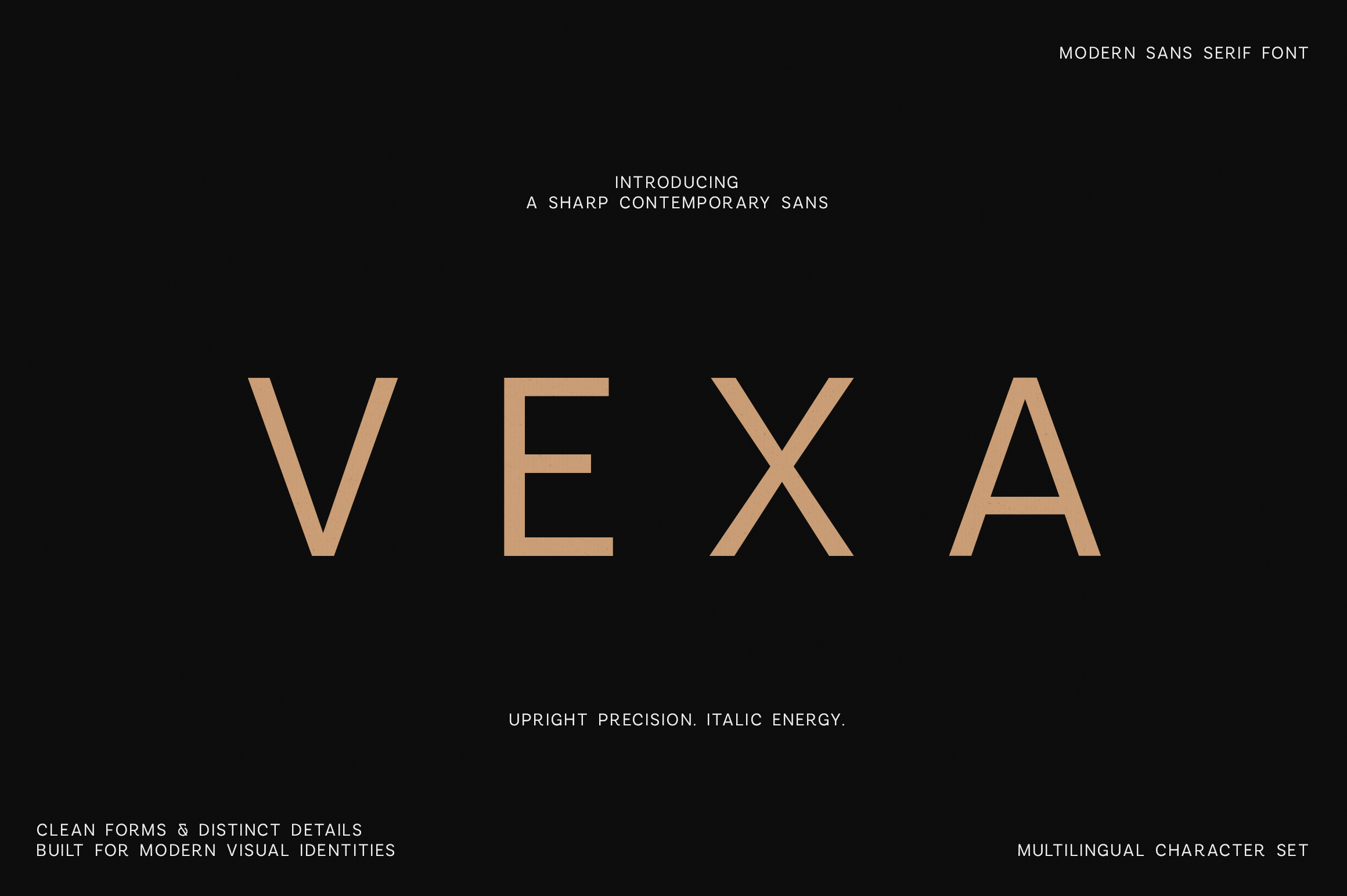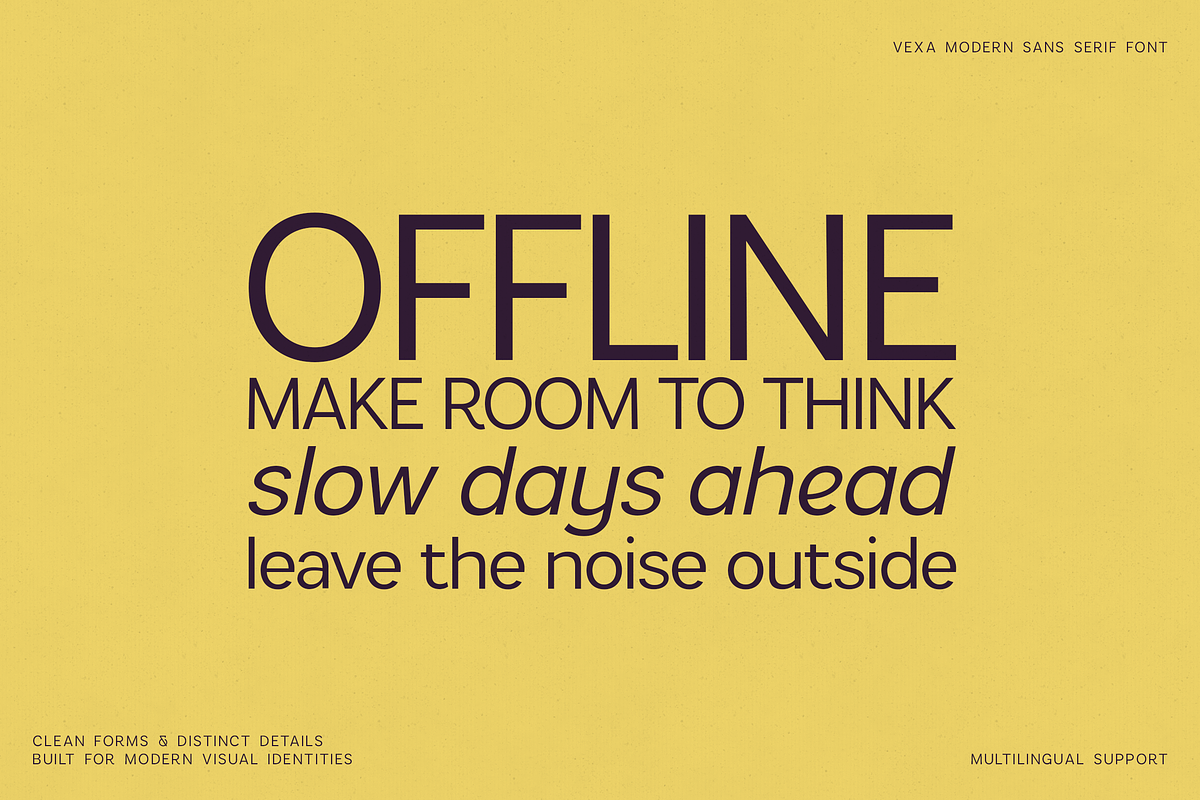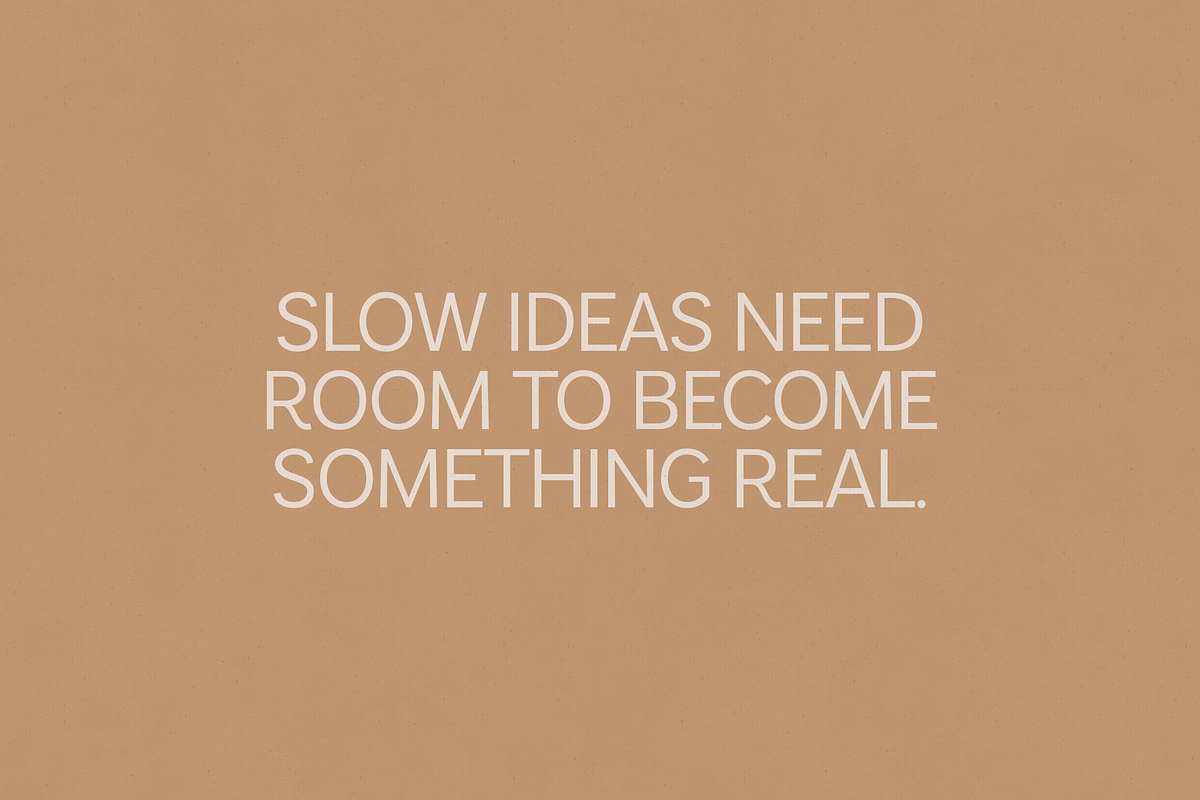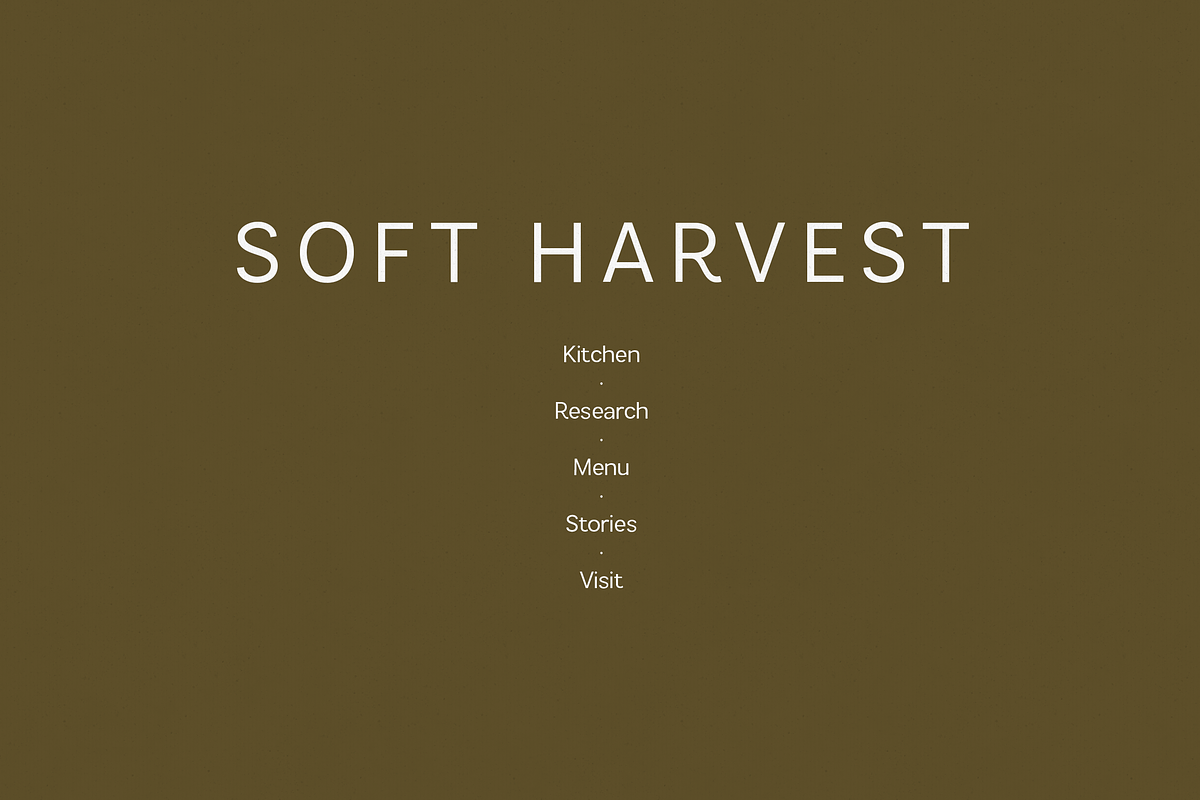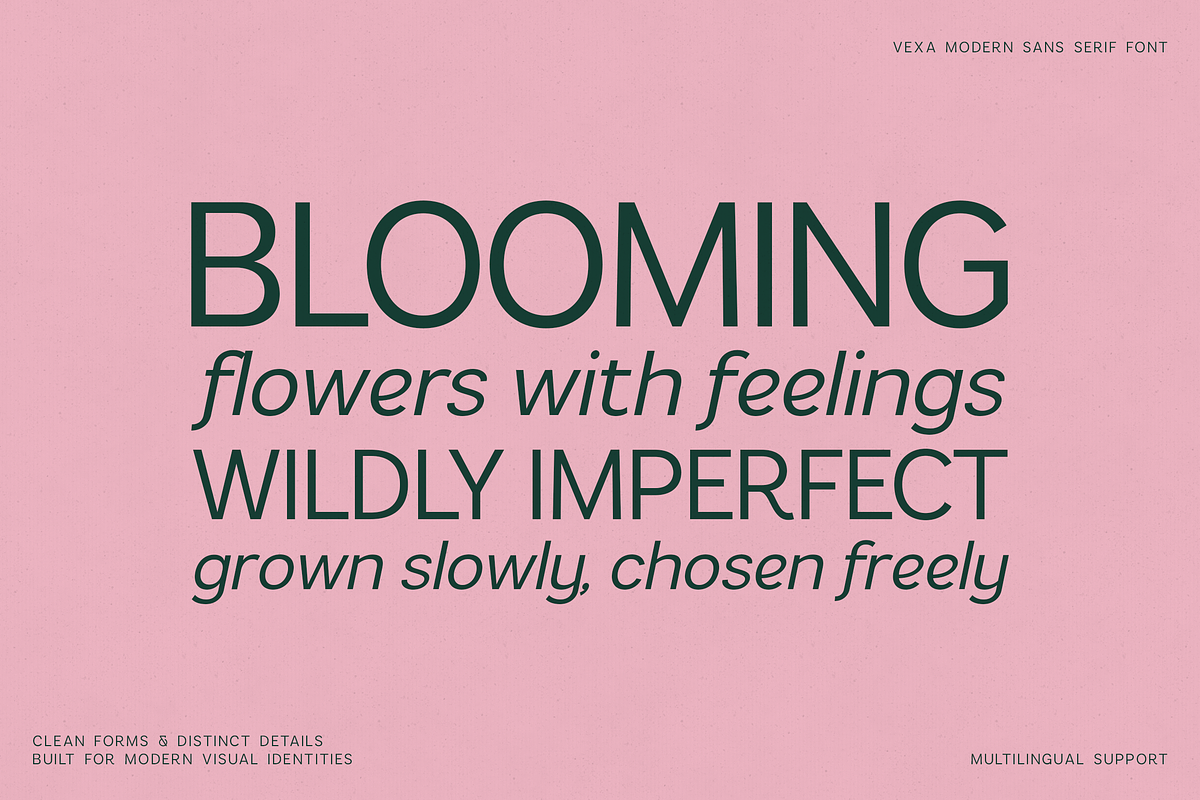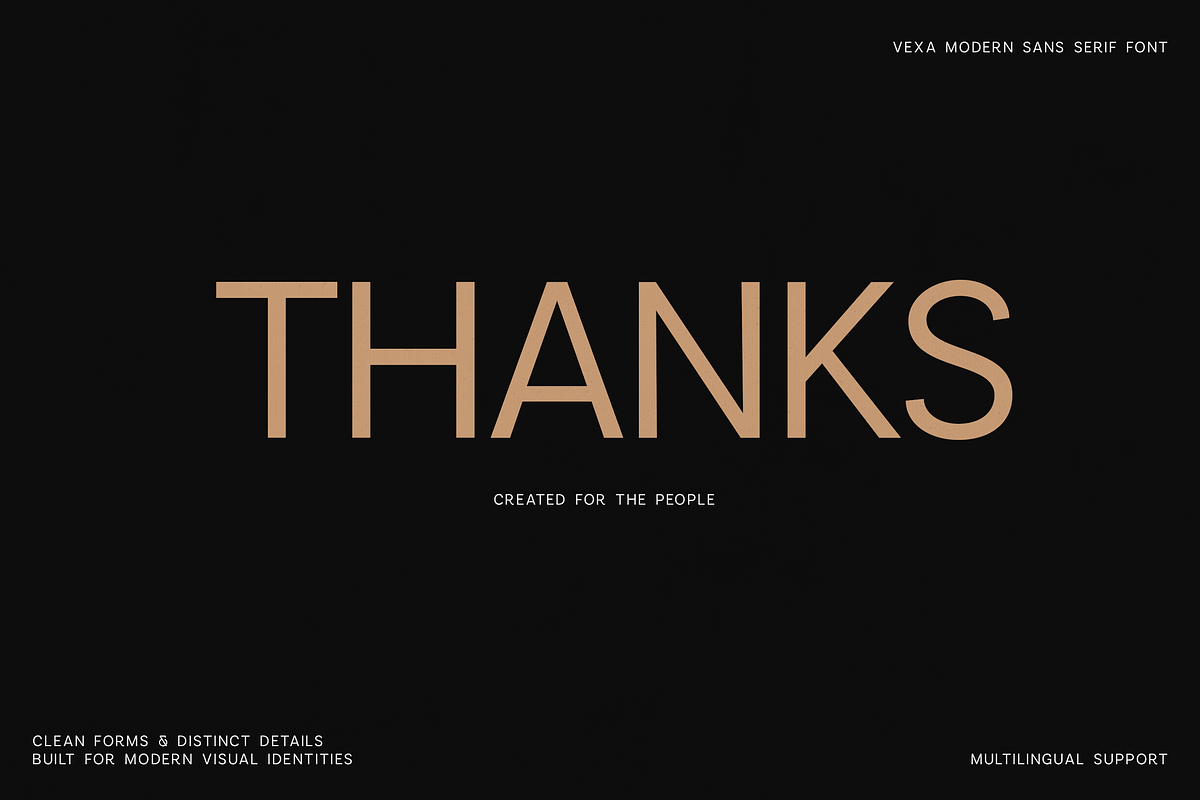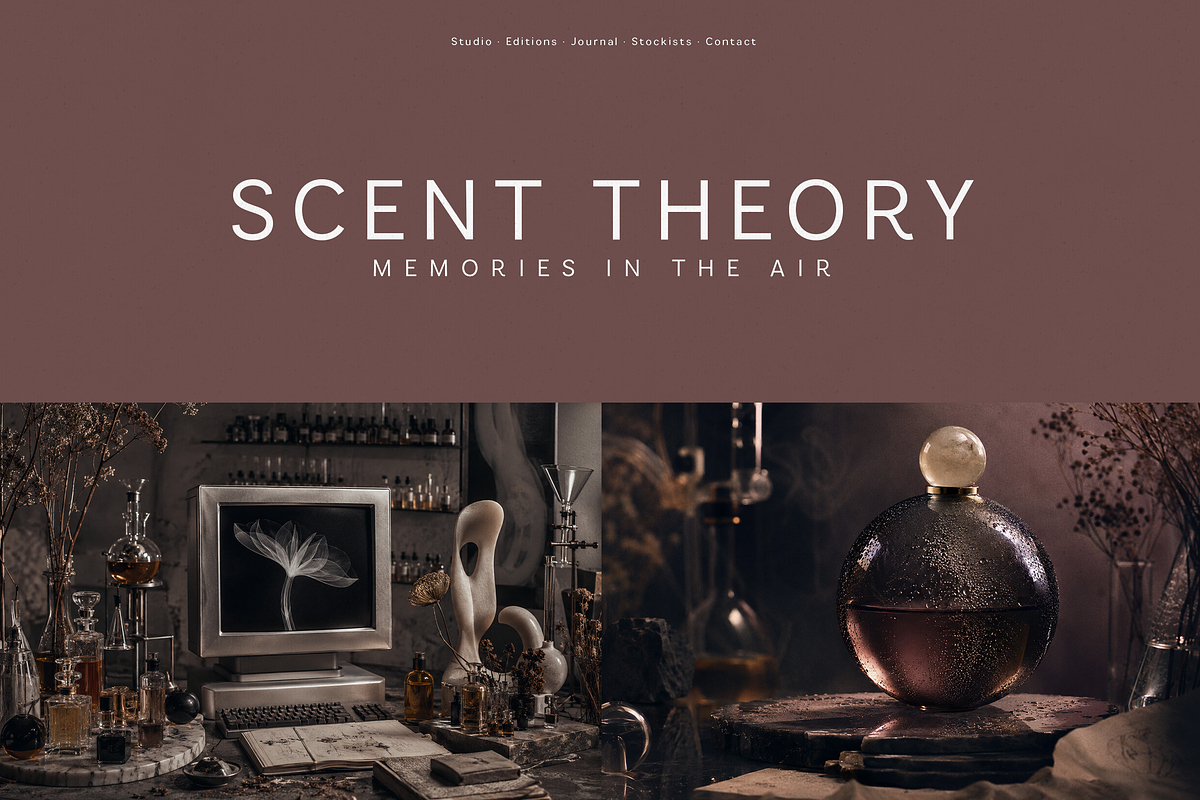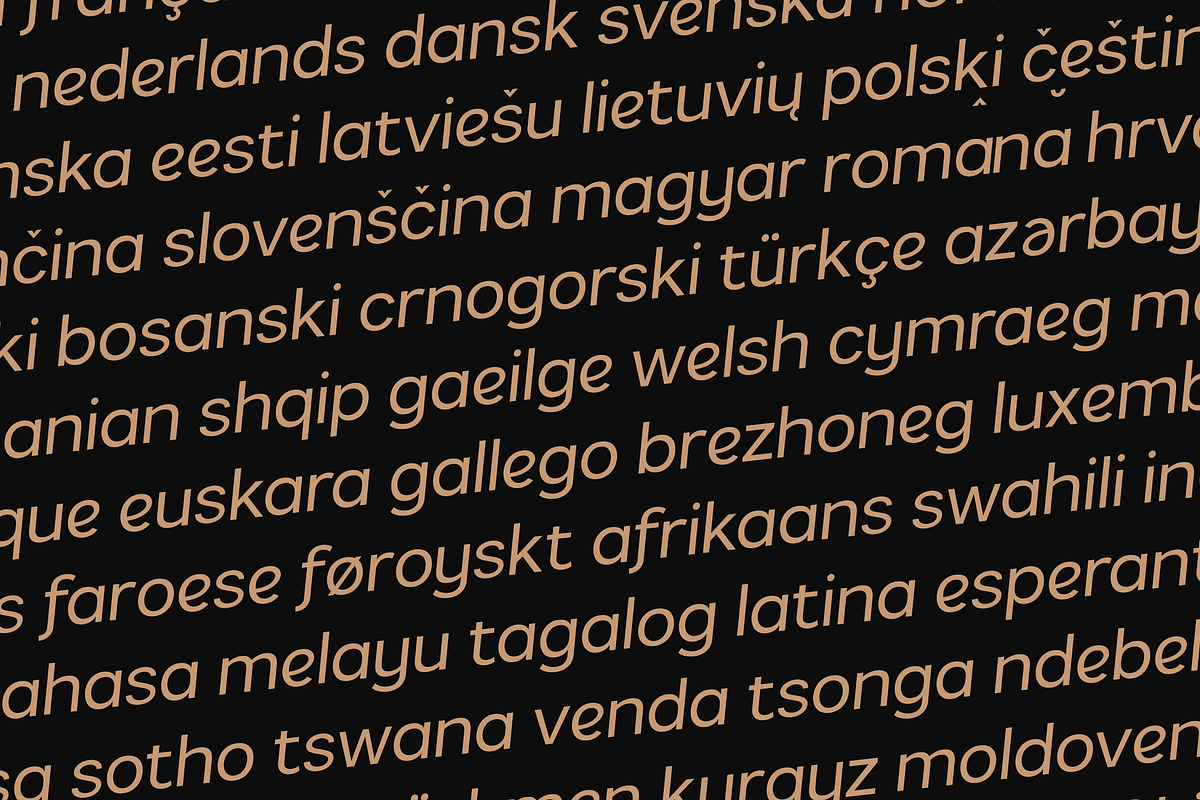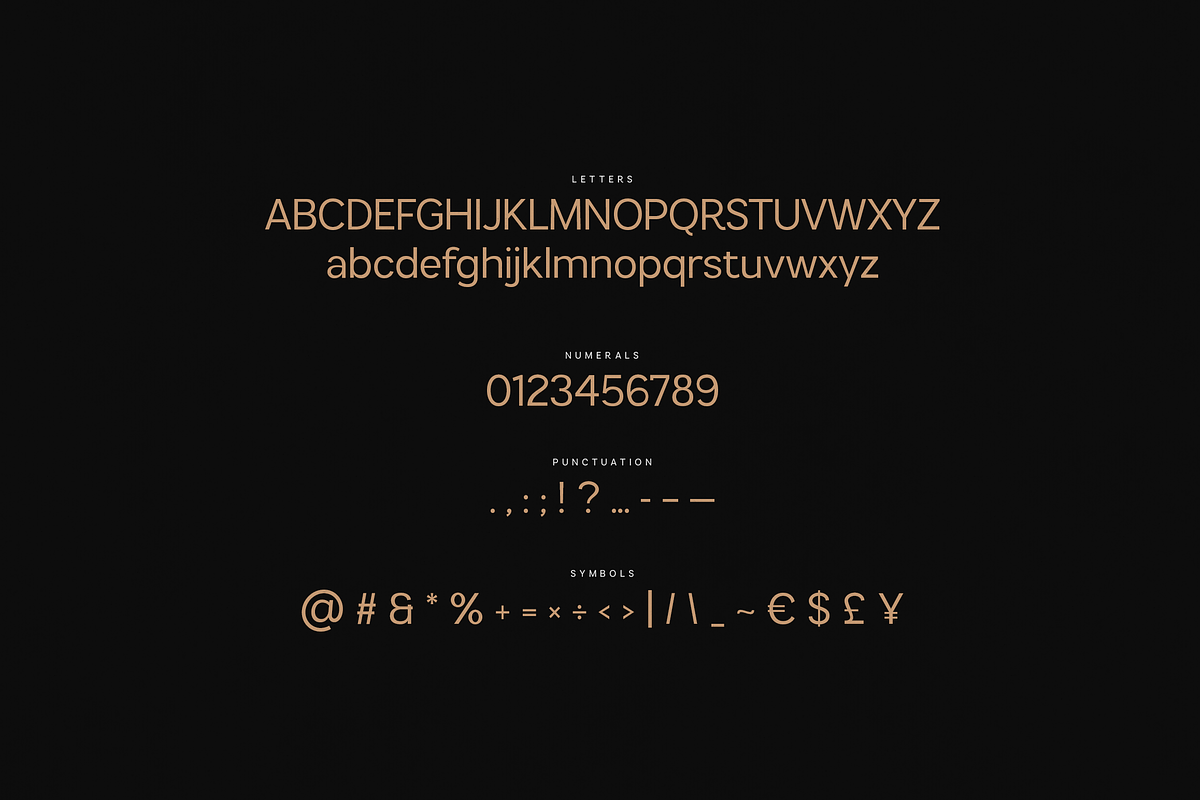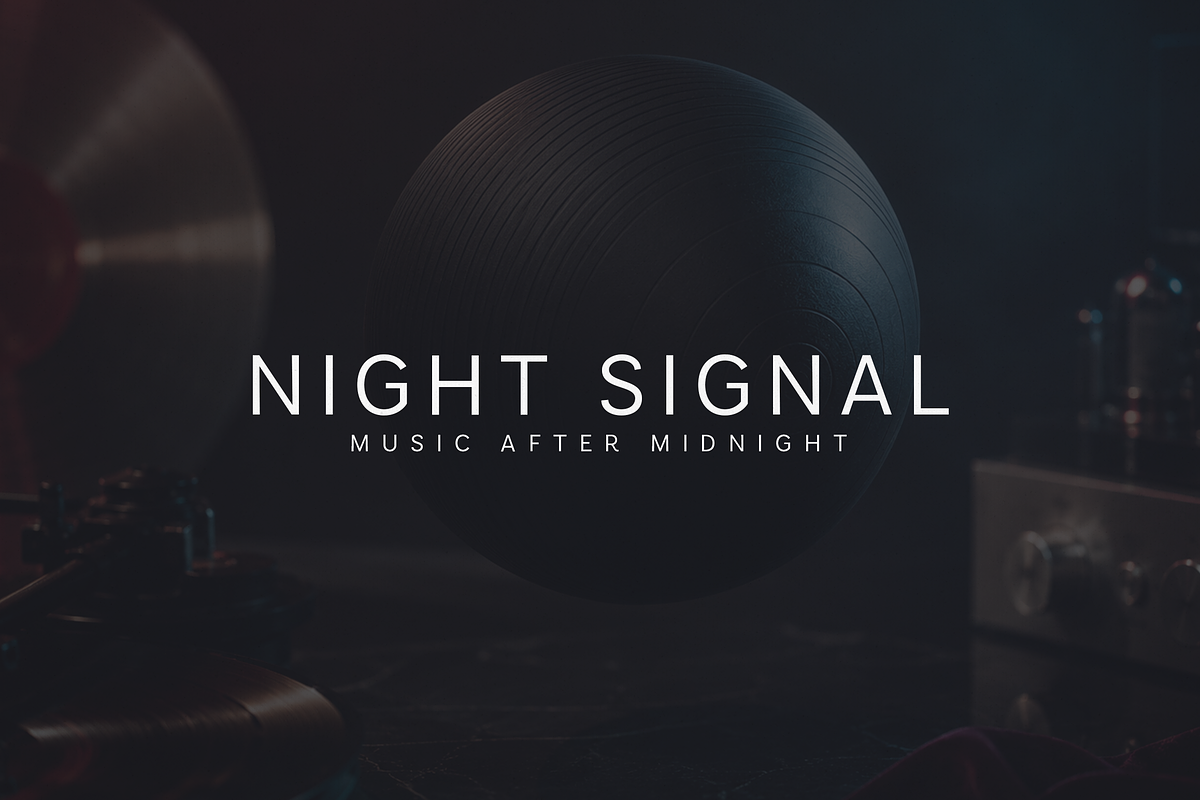
Vexa Modern Sans Serif Font
Vexa is a clean, contemporary sans serif font designed for modern branding, editorial layouts, fashion campaigns, packaging, websites, posters and social media graphics.
Its sharp geometric forms, open proportions and distinctive letter details give the typeface a refined minimalist character without feeling cold or generic. Vexa works beautifully in large headlines, elegant wordmarks and spacious editorial compositions, while remaining clear and balanced in smaller text.
The family includes both Regular and true Italic styles, allowing you to create stronger hierarchy, movement and contrast within one cohesive visual system. The italic is especially effective for fashion-inspired layouts, expressive quotes, magazine titles and contemporary brand identities.
With multilingual support, numerals, punctuation, symbols and currency characters, Vexa is a versatile choice for designers who need a polished modern font for both print and digital projects.